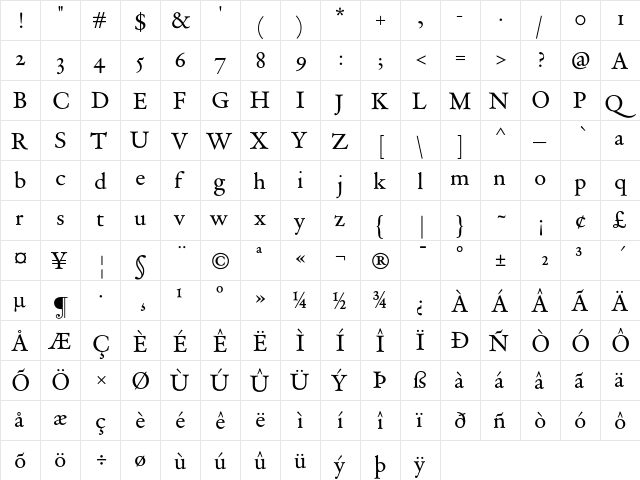
DTL VandenKeere ST Regular
Design Context for DTL VandenKeere Typeface
DTL VandenKeere takes a measured approach to typography — its balanced proportions and neutral character make it a reliable workhorse for both digital and print work.